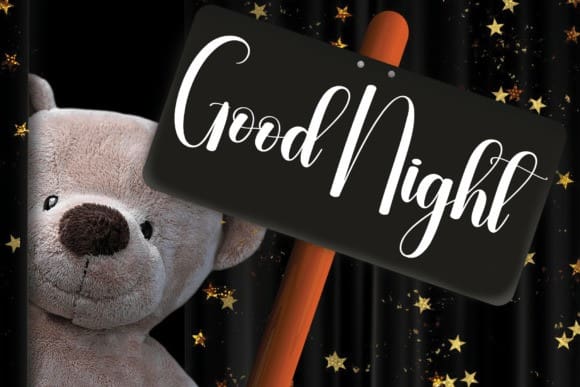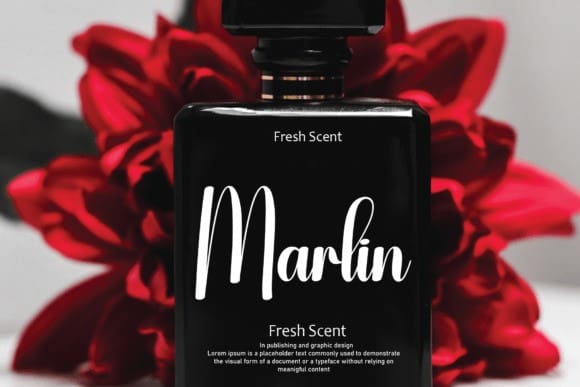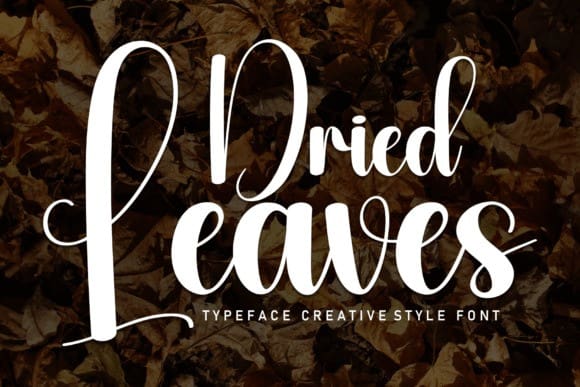
Dried Leaves Font
Dried Leaves Font is a sweet and friendly handwritten font. Fresh and casual, this font is ideal for writing wedding invitations, cards, or any other design that might need a lovely touch.